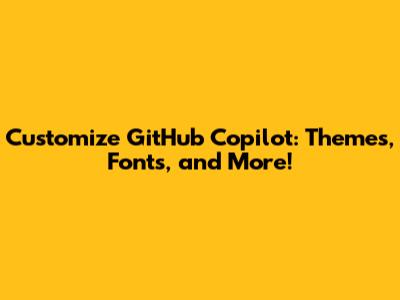
- Reduced Eye Strain: Adjusting themes and colors can reduce eye strain, especially during long coding sessions. Darker themes, for example, are often easier on the eyes in low-light environments.
- Improved Focus: A visually appealing and comfortable environment can help you focus better. When your tools look the way you want, you’re less likely to be distracted.
- Personal Expression: Let’s face it, coding is an art form. Customizing your tools allows you to express your personality and make your workspace feel more like home. Plus, it's just fun to tweak things to your liking!
- Better Code Comprehension: Highlighting code with specific color schemes can improve readability and comprehension. This is especially useful when working with complex codebases. By tailoring the appearance to your needs, you can quickly identify different elements and patterns.
- Accessibility: Customization options like font size and contrast ratios can make Copilot more accessible to users with visual impairments. Ensuring your tools are accessible is crucial for inclusive development.
- Themes: Themes control the overall color scheme of your editor, including the colors of the background, text, and syntax highlighting. Both light and dark themes are available, and many editors allow you to create or install custom themes.
- Fonts: The font you choose can significantly impact readability. Consider using monospaced fonts, which ensure that each character occupies the same amount of horizontal space. Popular options include Fira Code, Consolas, and Menlo.
- Color Schemes: Color schemes define how different code elements (e.g., keywords, variables, comments) are highlighted. A well-chosen color scheme can make code easier to scan and understand. Many themes come with pre-defined color schemes, but you can also customize these.
- Editor Settings: Your code editor's settings allow you to adjust various aspects of the UI, such as tab size, line height, and indentation. These settings can affect how Copilot's suggestions are displayed and how well they integrate with your code.
- Copilot Specific Settings: While Copilot itself doesn't have extensive appearance settings, it respects the editor's settings. However, keep an eye on updates, as Copilot might introduce more customization options in the future.
- Search for "Font Family": In the settings search bar, type
font family. You should see theEditor: Font Familysetting. - Enter Your Font: Enter the name of your desired font in the text field. Make sure the font is installed on your system. Popular monospaced fonts include Fira Code, Consolas, Menlo, and Source Code Pro.
- Adjust Font Size (Optional): You can also adjust the font size by searching for
font sizein the settings. TheEditor: Font Sizesetting allows you to specify the font size in pixels. - Open the Settings JSON: Open the
Settings (JSON)file by using the Command Palette (Ctrl + Shift + PorCmd + Shift + P) and typingSettings JSON. - Add Customizations: In the
settings.jsonfile, you can add customizations to theeditor.tokenColorCustomizationssetting. This setting allows you to override the colors of specific code elements. - Tab Size: Adjust the tab size by searching for
tab sizein the settings. TheEditor: Tab Sizesetting allows you to specify the number of spaces a tab should represent. - Line Height: Adjust the line height by searching for
line heightin the settings. TheEditor: Line Heightsetting allows you to specify the line height as a multiplier of the font size. - Word Wrap: Enable or disable word wrap by searching for
word wrapin the settings. TheEditor: Word Wrapsetting allows you to control whether lines of code should wrap to the next line. - Use a Dark Theme for Night Coding: If you often code at night or in low-light environments, a dark theme can reduce eye strain. Popular dark themes include Dracula, One Dark Pro, and Night Owl.